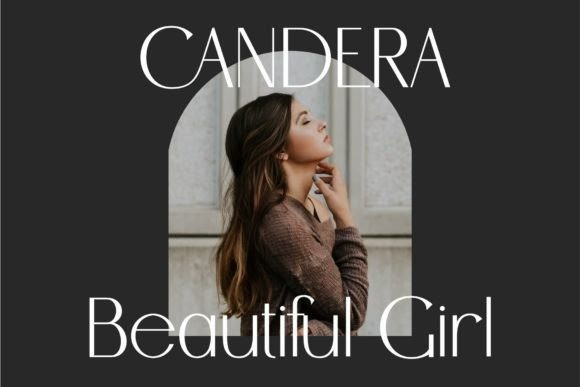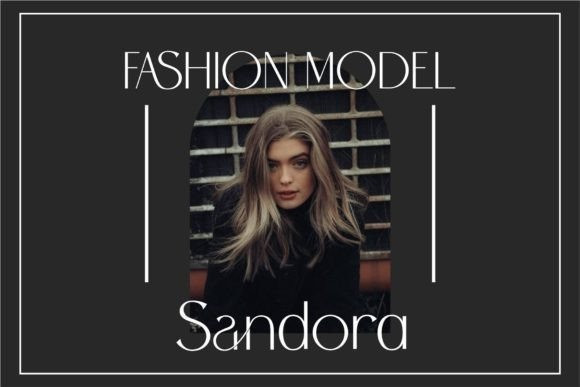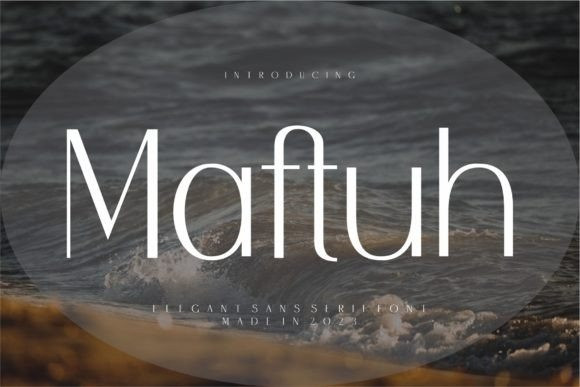
Maftuh Font
Maftuh Font sans serif with simple, clean, and visual elegance. Specially designed for elegant-themed projects, perfectly suitable for creating simple, clean, lifestyle designs such as logos, titles, magazines, and more.